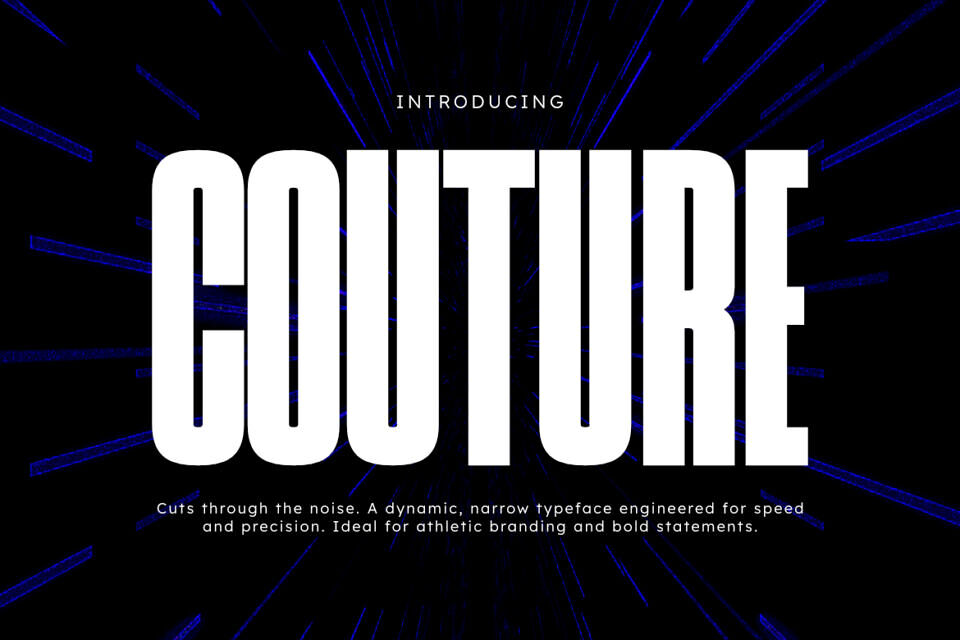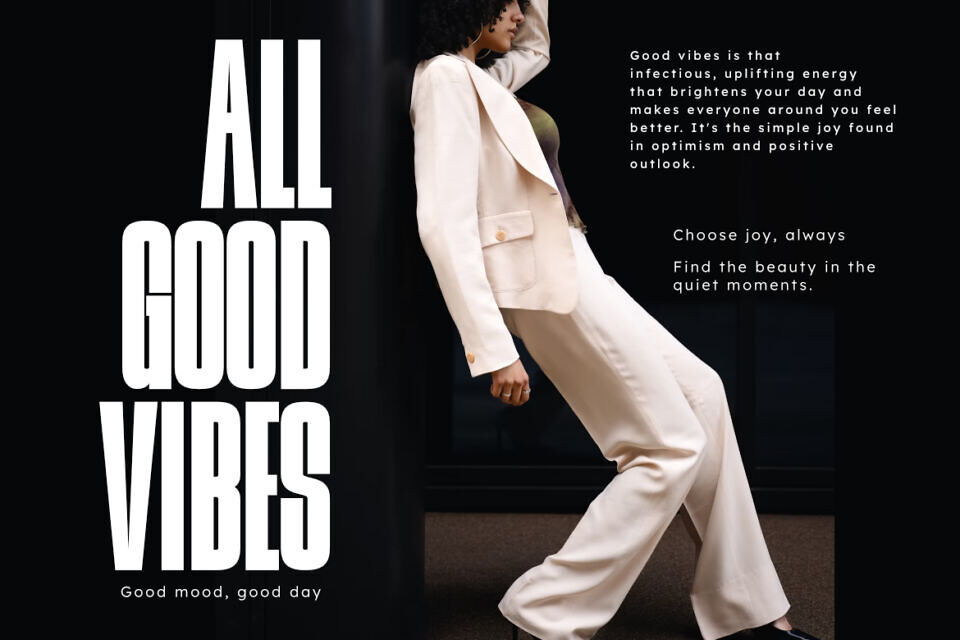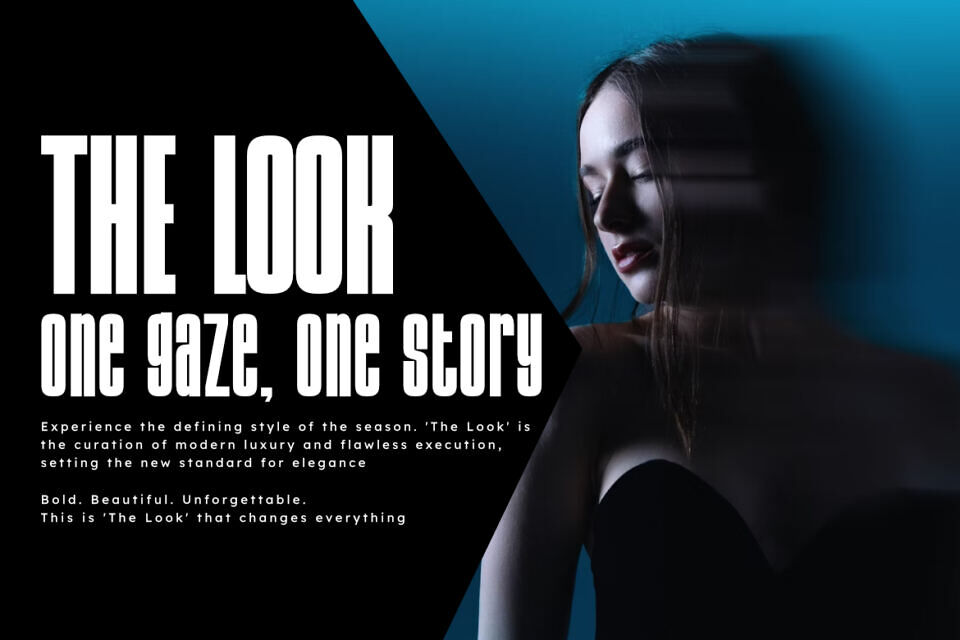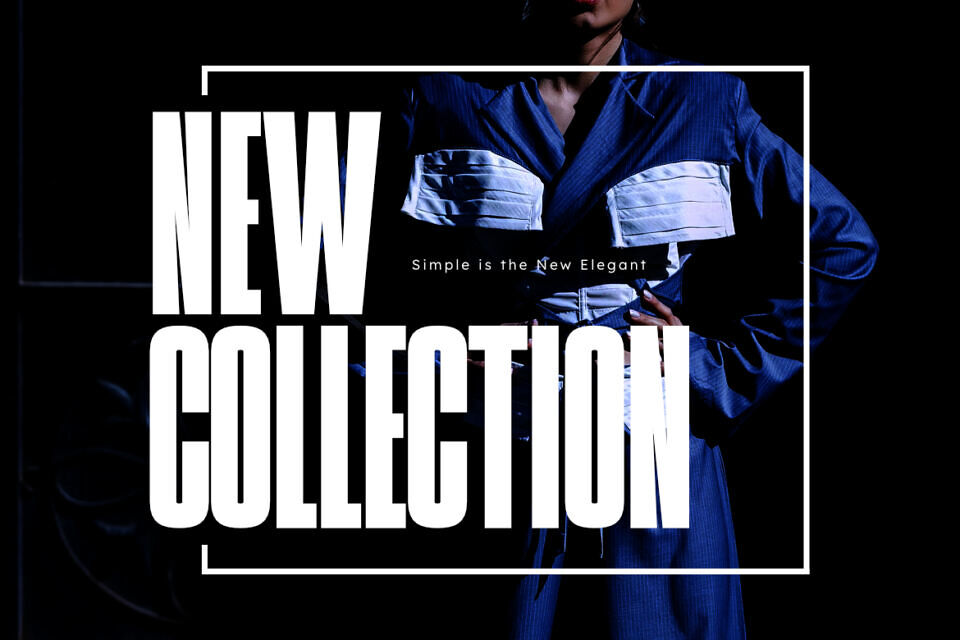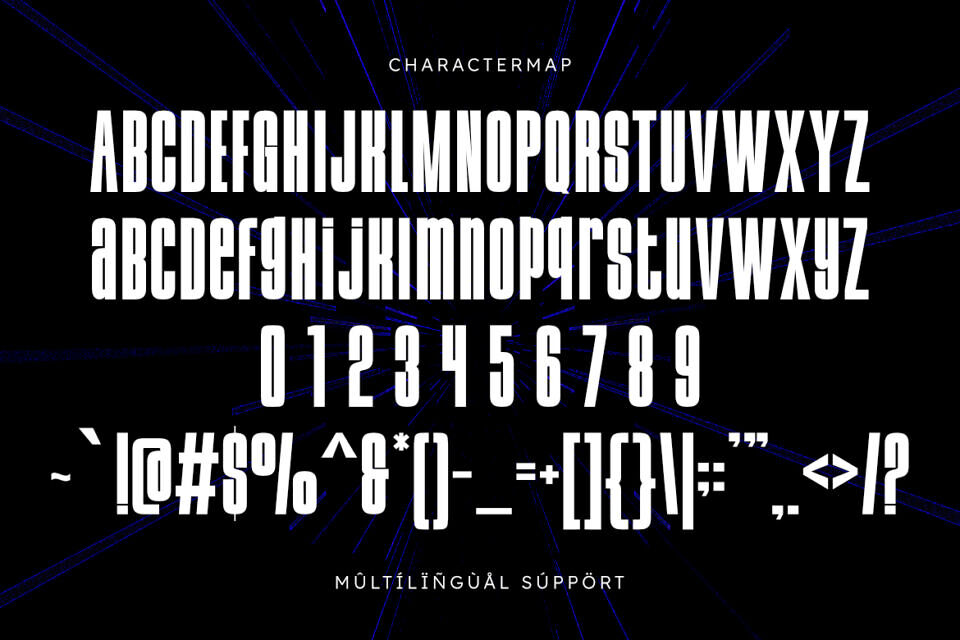
Couture is a bold and stylish narrow sans serif font designed for speed, strength, and modern aesthetics. With its clean geometry and tall proportions, Couture adds a sense of confidence and precision to any project. Perfect for sports branding, luxury fashion, editorial headlines, posters, and logo designs that demand attention and power.